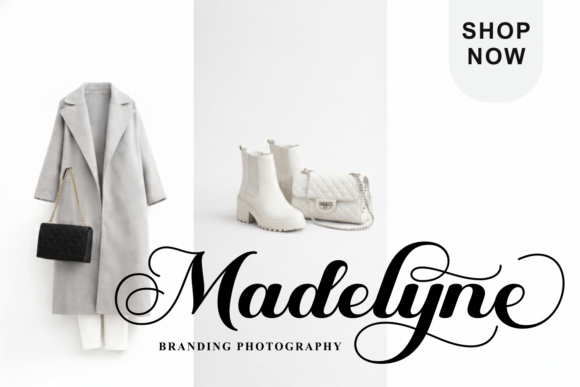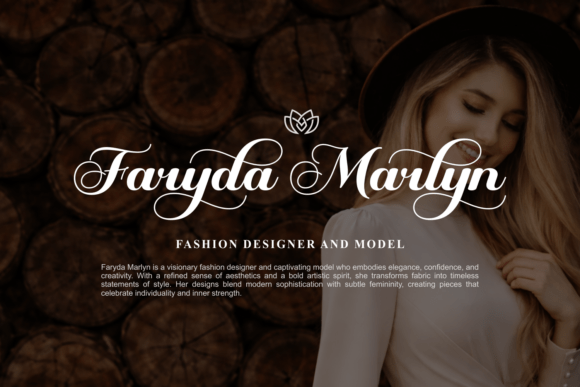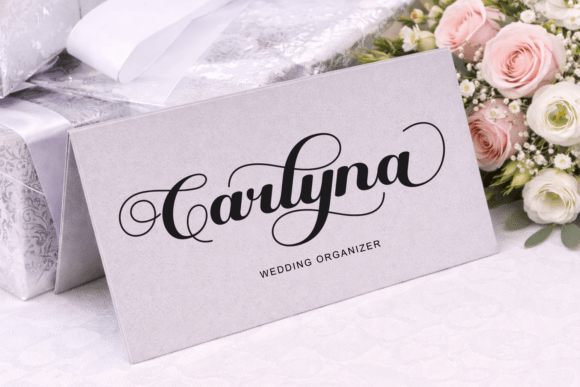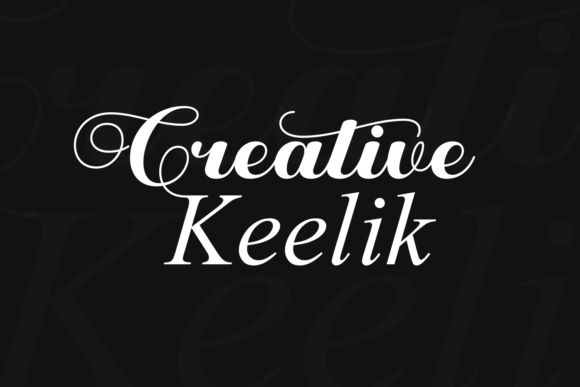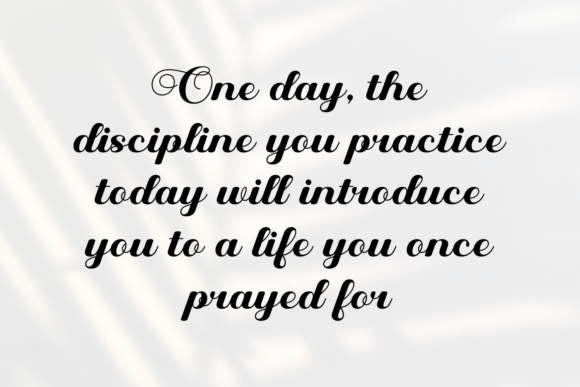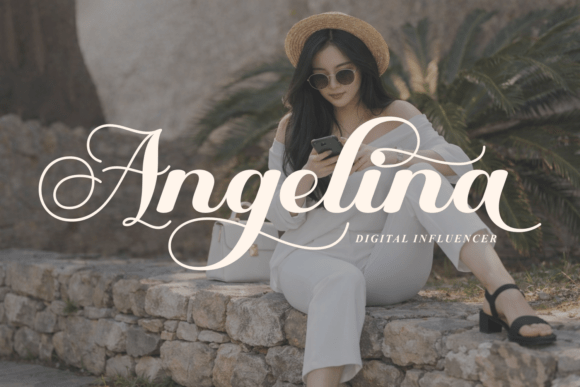
Creating Unforgettable Moments with the Perfect Font
As a designer, you’ve probably found yourself pouring over font options for the perfect wedding invitation or event signage. You envision the look, feel, and emotion you want to convey, but the right font can be elusive. You want something that speaks to the beauty and romance of the occasion, something that elevates the moment to an unforgettable experience.
Enter the August Wedding Font, a masterful creation of calligraphy that embodies the essence of timeless love. This exquisite typeface features sweeping swashes and sophisticated flourishes, making it the ideal choice for luxury bridal branding. Whether you’re designing bespoke invitations or high-end event signage, the August Wedding Font adds a touch of ethereal elegance to every character.
For designers, the August Wedding Font is a valuable asset, offering a level of sophistication and romance that’s hard to find in other fonts. Its PUA encoded glyphs and swashes make it easy to use in any design software, allowing you to create stunning visuals that leave a lasting impression.
August Wedding Font Key Features
- Unique Characteristics: This beautiful script font features flowing, cursive lines, making it perfect for romantic and whimsical designs, such as wedding invitations, menus, and labels.
August Wedding Font Review
As a designer, I was excited to dive into the August Wedding Font and see what it has to offer. ✨ One of the first things I noticed was the elegant, cursive feel of the font, which makes it perfect for weddings and other romantic occasions. The font is also highly customizable, with a wide range of sizes and colors available.
- ✨ Elegant and cursive design, perfect for weddings and romantic occasions
- ✨ Highly customizable with various sizes and colors available
- ✨ Supports multiple languages and script types
However, there are a few limitations to consider ⚠️. The font may not be suitable for large blocks of text, as it can become difficult to read. Additionally, some users have reported issues with the font not rendering correctly in certain browsers or devices.
- ⚠️ May not be suitable for large blocks of text due to readability issues
- ⚠️ Potential compatibility issues with certain browsers or devices
- ⚠️ Limited support for bold and italic styles
Overall, I would say that the August Wedding Font is a beautiful and elegant choice for any wedding or romantic project. While it may have some limitations, the benefits far outweigh the drawbacks. With proper use and customization, this font can add a touch of sophistication and romance to any design.
Tips for Getting the Most Out of the August Wedding Font
For a romantic and elegant look, use the August Wedding Font in combination with soft colors and delicate graphics.
Experiment with different font sizes and styles to create visual interest and emphasis in your design.
The August Wedding Font is perfect for:
- Wedding websites and blogs
- Wedding photography and videography branding